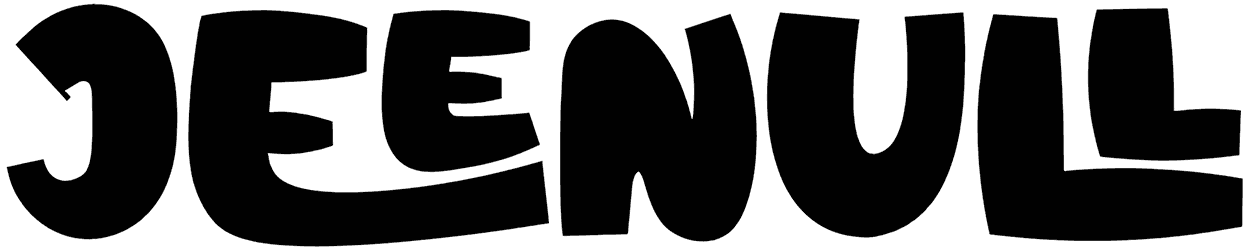
Jeenull Font
Jeenull is a cartoon font designed with inspiration from playful animations and can splash a little excitement on your texts. You can get an extra bold and joyous look from it and use it for any decorative headlines or titles, comic books, comic shop flyers, banners, action, and comedy movies.
This playful font makes up for what it lacks in numerals by presenting an attention-grabbing style.